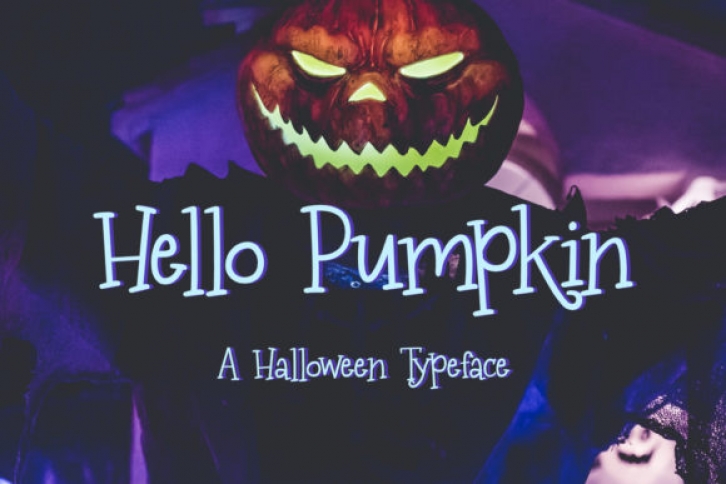
Hello Pumpkin is a sweet, quirky and a bit spooky serif font. Fall in love with its incredibly versatile style and use it to create spectacular Halloween designs!